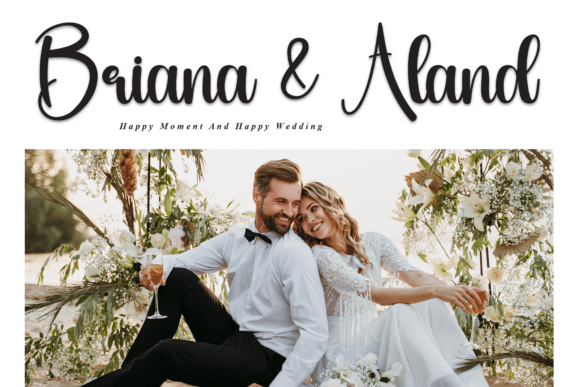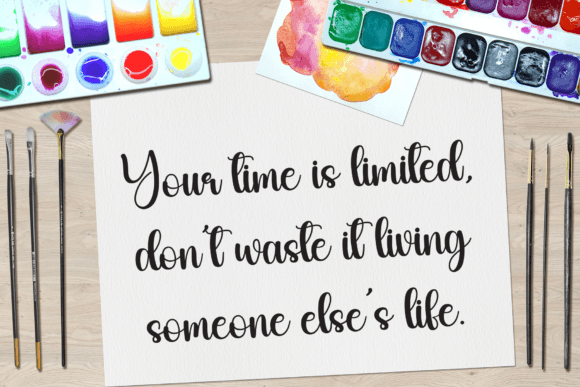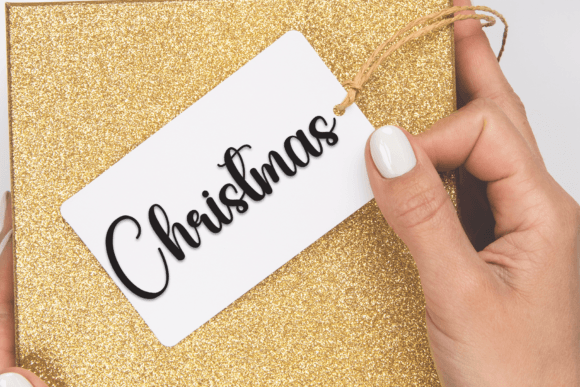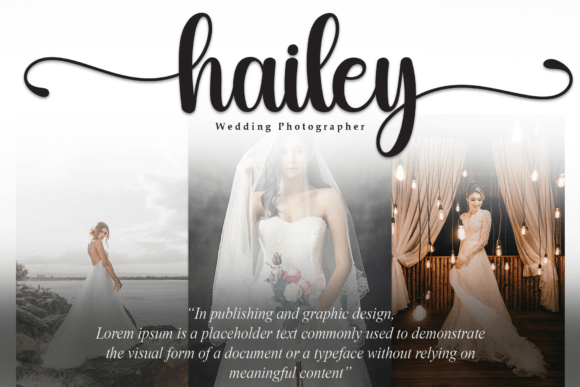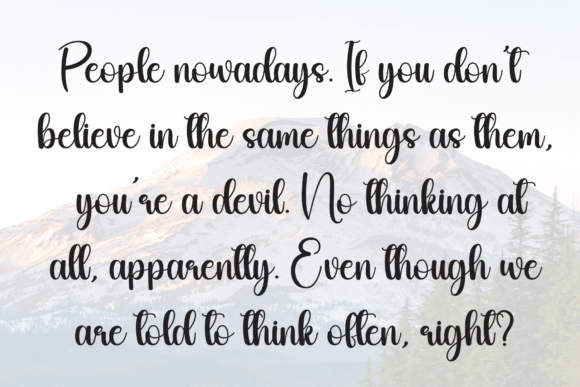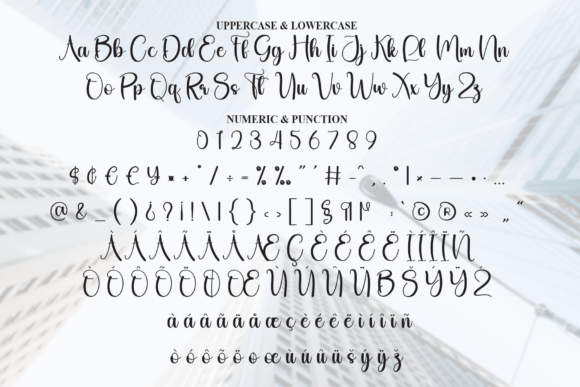
Introducing Building Font: The Perfect Playful Handwritten Font for Your Designs
Are you tired of using the same old boring fonts for your designs? Do you want to add a personal touch to your projects and make them stand out? Look no further than Building Font, a playful handwritten font that looks like natural, casual writing. In this article, we’ll explore the features and benefits of Building Font, and show you how it can elevate your designs to the next level.
What is Building Font?
Building Font is a unique and charming handwritten font that mimics the look of natural, casual writing. It’s perfect for designers and crafters who want to add a touch of warmth and friendliness to their projects. Whether you’re creating invitations, quotes, or creative projects, Building Font is the ideal choice.
Key Features of Building Font
- Playful and Handwritten: Building Font has a playful and handwritten feel that makes it perfect for designs that require a personal touch.
- Easy to Read: Despite its casual look, Building Font is easy to read and understand, making it perfect for body text and headings.
- Natural and Casual: Building Font looks like natural, casual writing, which makes it perfect for designs that require a personal and friendly touch.
- Versatile: Building Font can be used for a wide range of projects, including invitations, quotes, creative projects, and more.
Benefits of Using Building Font
So why should you use Building Font for your designs? Here are just a few benefits:
- Adds a Personal Touch: Building Font adds a personal touch to your designs, making them more relatable and engaging.
- Creates a Friendly Atmosphere: Building Font creates a friendly and welcoming atmosphere, perfect for designs that require a warm and approachable feel.
- Perfect for Creative Projects: Building Font is perfect for creative projects, such as craft tutorials, DIY guides, and more.
- Great for Invitations and Quotes: Building Font is also great for invitations and quotes, adding a touch of elegance and sophistication to your designs.
How to Use Building Font in Your Designs
Using Building Font in your designs is easy. Here are a few tips:
- Pair it with Other Fonts: Building Font pairs well with other fonts, such as sans-serif fonts and script fonts.
- Use it for Headings and Body Text: Building Font can be used for both headings and body text, making it a versatile font for your designs.
- Experiment with Colors and Textures: Building Font looks great in a variety of colors and textures, so don’t be afraid to experiment and find the perfect combination for your design.
In conclusion, Building Font is a playful handwritten font that looks like natural, casual writing. It’s easy to read and adds a personal touch to your designs, making it perfect for invitations, quotes, and creative projects. With its unique features and benefits, Building Font is a great addition to any designer’s toolkit. So why not give it a try and see how it can elevate your designs to the next level?